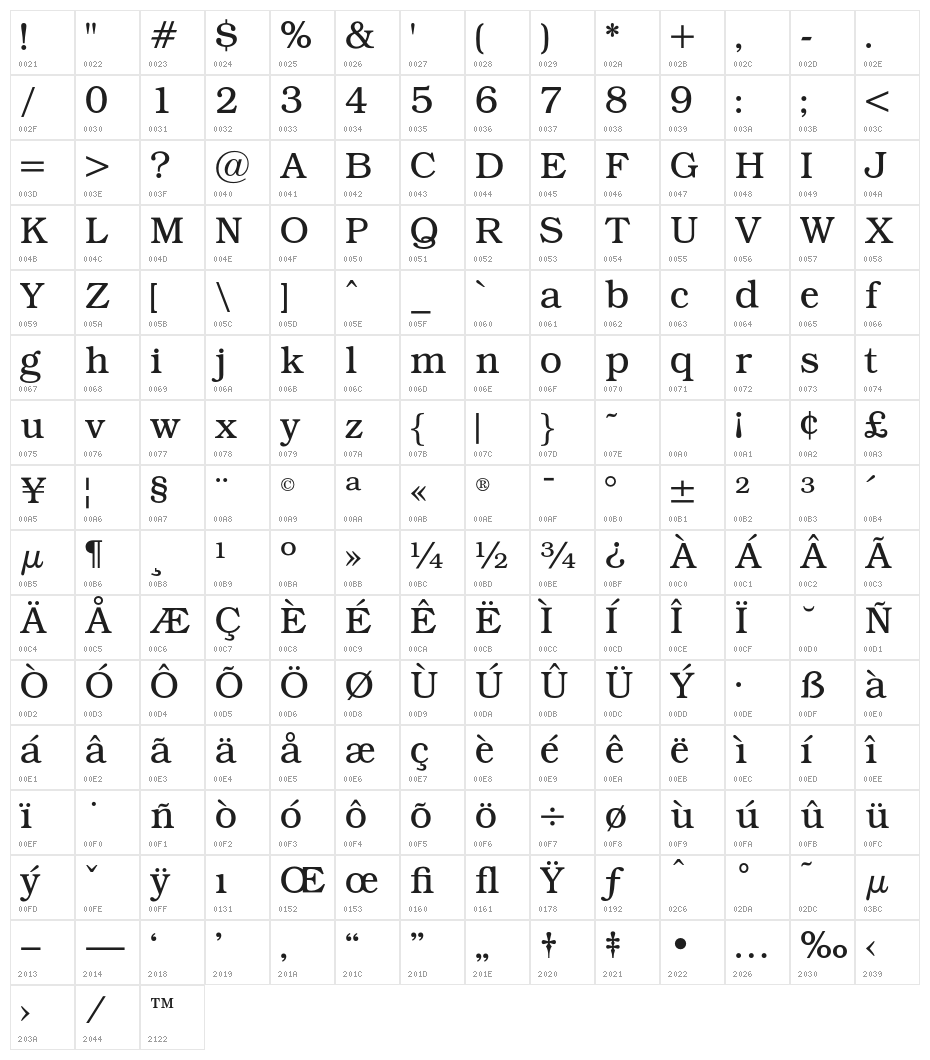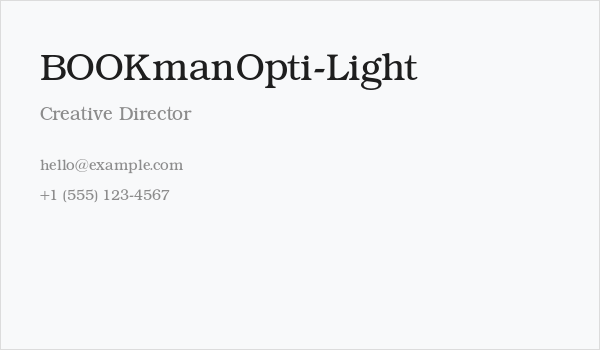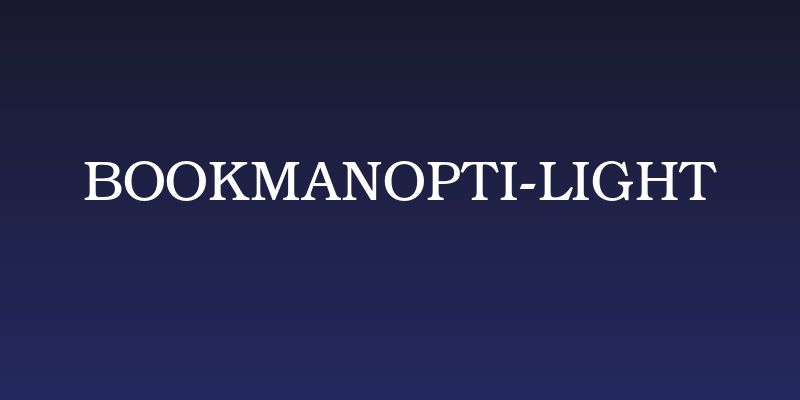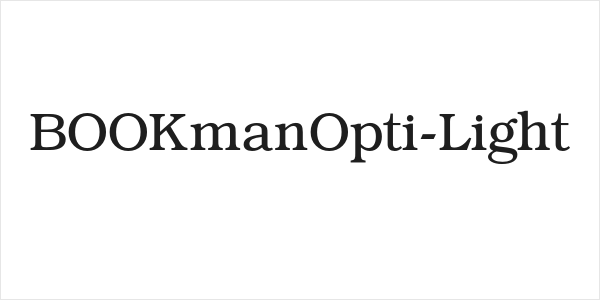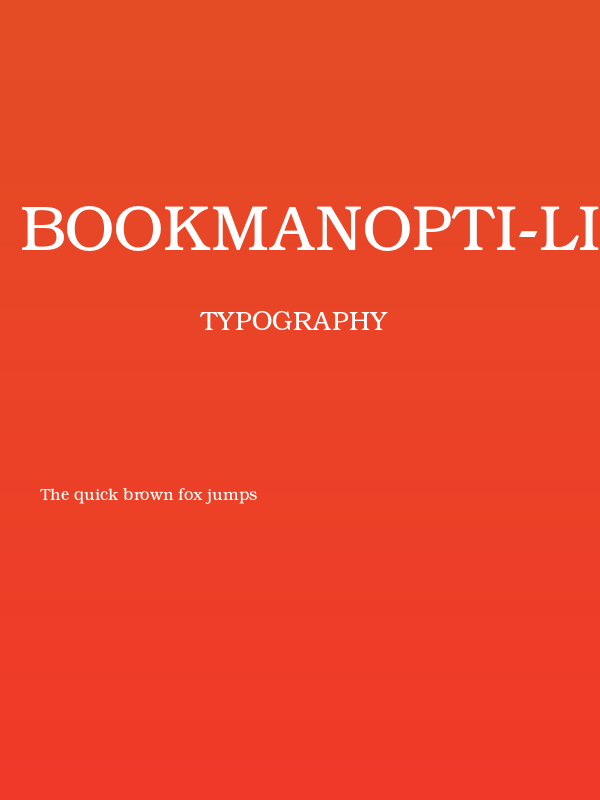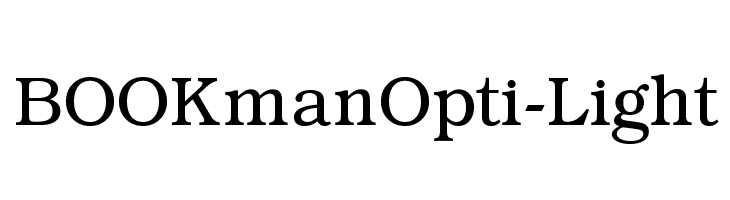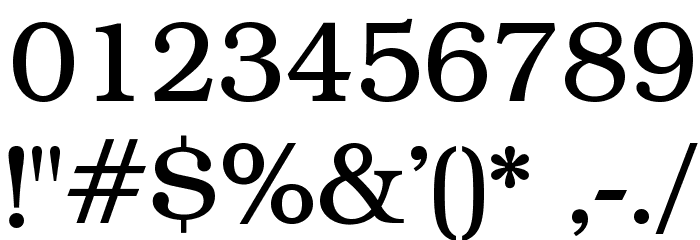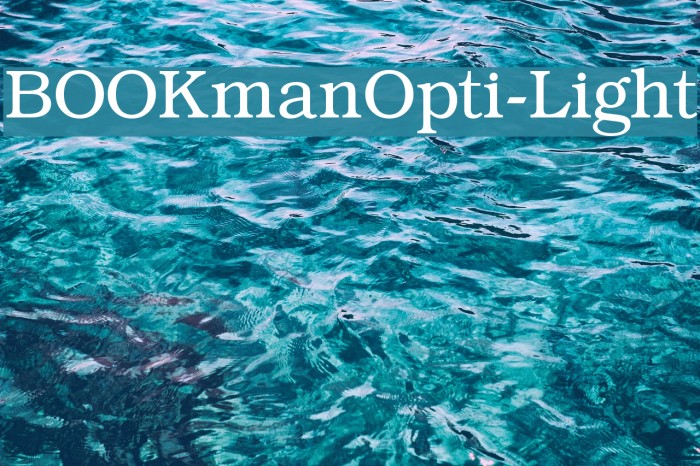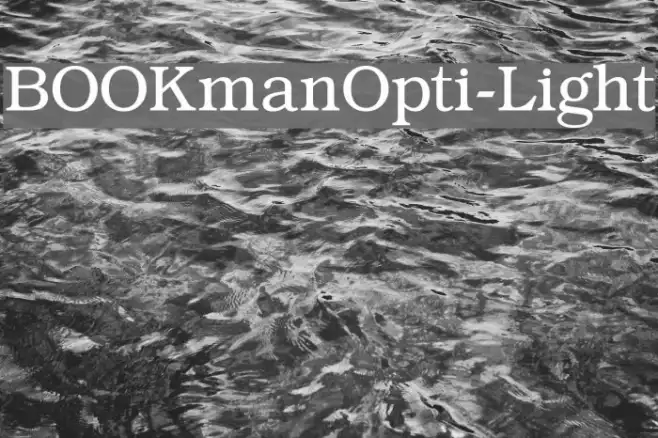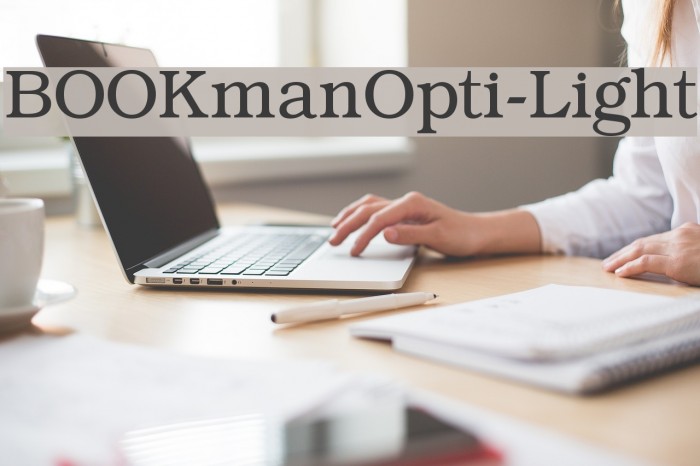
BOOKmanOpti-Light Font
BOOKmanOpti-Light Description
This font exhibits a classic serif style with a refined and elegant appearance. The characters are well-proportioned, featuring thin strokes with slightly thicker verticals, giving it a sophisticated look. The serifs are pronounced yet not overly exaggerated, adding to its readability and timeless appeal. The uppercase letters are stately and balanced, while the lowercase letters maintain a consistent flow, enhancing the overall harmony of the typeface. The numerals are clear and distinct, making them suitable for both text and display purposes. Special characters are crafted with attention to detail, ensuring versatility across various applications.
| Use Case | Editorial design, Book covers, Formal invitations |
| Proposed Projects | Ideal for editorial design, book covers, formal invitations, and branding projects that require a touch of sophistication. |